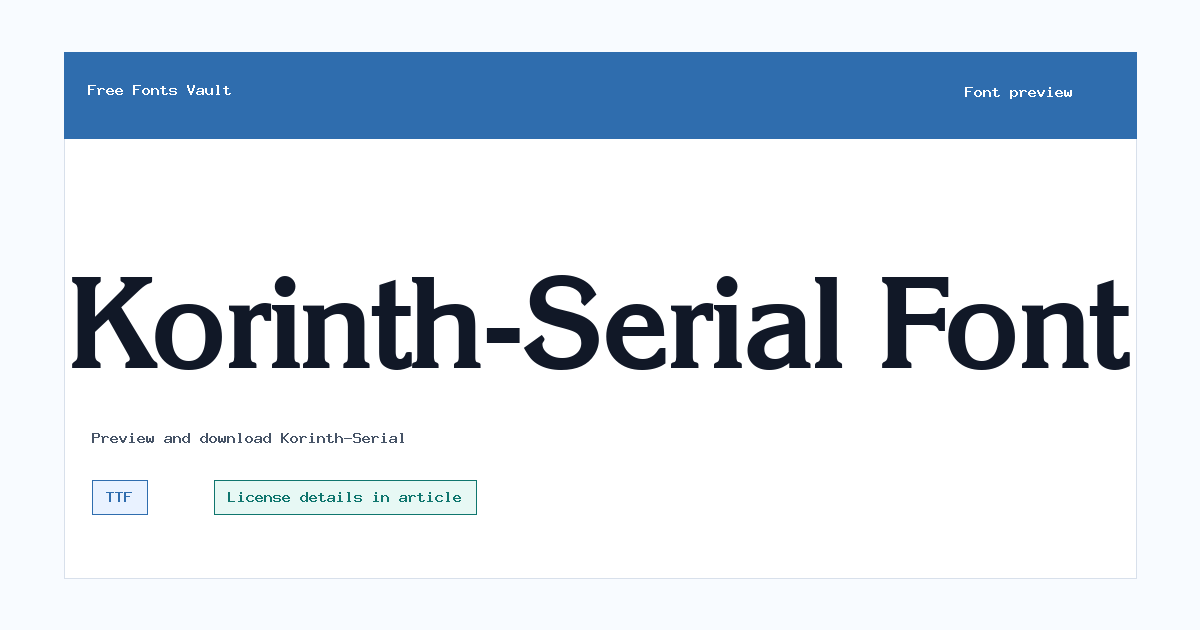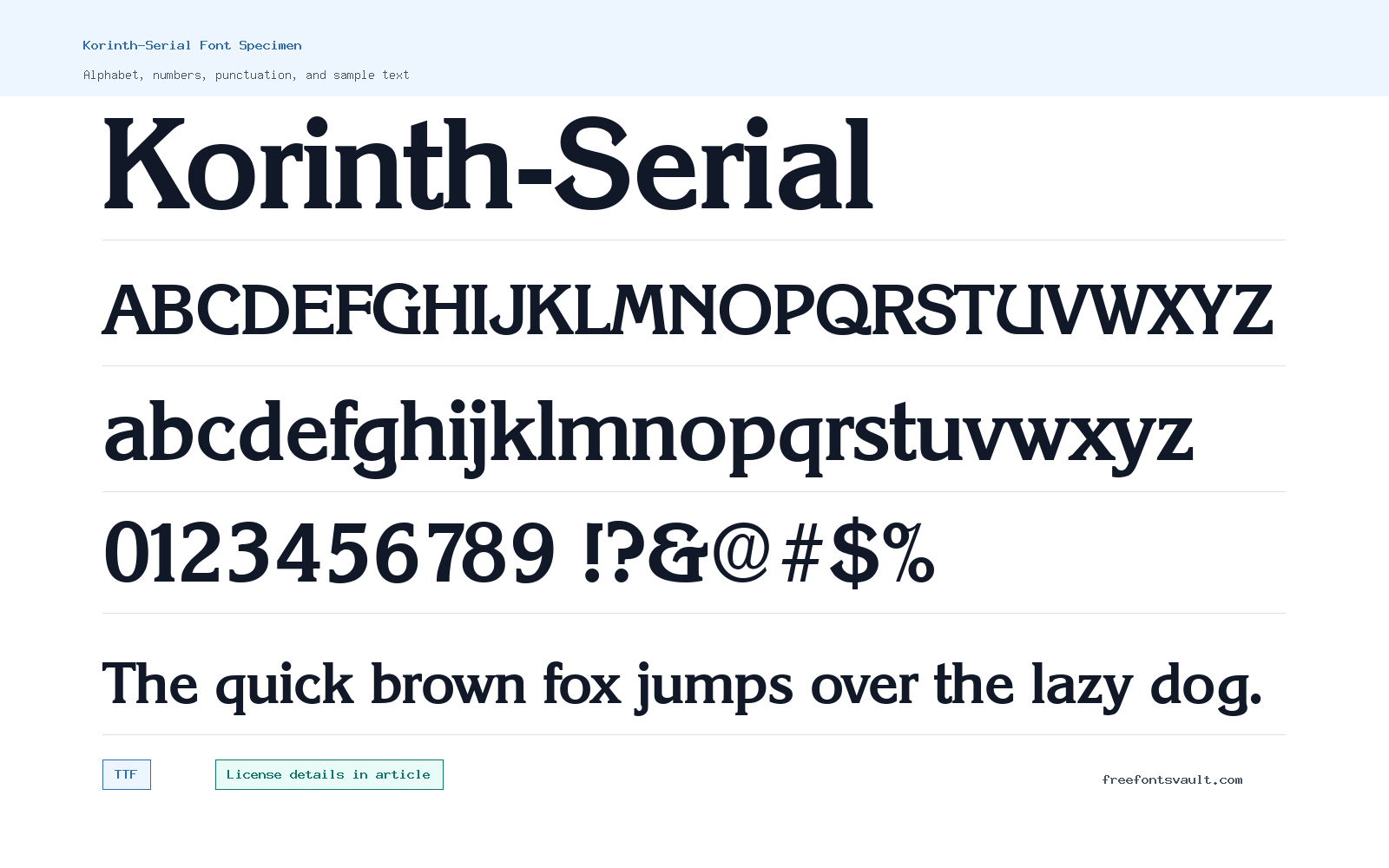
Korinth-Serial
- Designer (c) 1996 SoftMaker Software GmbH
Korinth-Serial font.
Korinth-Serial is a serif font family published under SoftMaker, with this download focused on the Bold TrueType file, Korinth-Serial-Bold.ttf.
About Korinth-Serial
Korinth-Serial has the feel of a display serif rather than a plain text face. The Bold style gives words a firm, noticeable shape, with enough serif character to feel more distinctive than a standard book font. It can work well when you want a heading, nameplate, poster line, or short title to look traditional but not stiff. Because this listing uses the Bold TTF file, it is best tested at larger sizes first, where the weight and details are easier to judge.
Use the preview box to try the exact words you plan to set. Short phrases, initials, numbers, and mixed-case headings will tell you more than a long sample sentence. If you plan to use Korinth-Serial for body copy, test paragraphs carefully, because a bold display serif can become heavy when used in long reading blocks. It may pair better with a quieter sans serif or a lighter text serif for descriptions, menus, captions, and supporting copy.
- Serif family with commercial retail listings under SoftMaker and multiple related styles in the wider Korinth Serial family
- Headlines, title graphics, posters, labels, and short display text
- Projects that need a serif look with more personality than a neutral text face
The font file information names “(c) 1996 SoftMaker Software GmbH.” Retail listings also associate the Korinth Serial family with SoftMaker. A separate individual designer name was not confirmed.
What is Korinth-Serial best used for?
It is most practical for short display settings such as titles, poster text, labels, and decorative headings. For long paragraphs, test readability first or use a calmer text font alongside it.
Who published Korinth-Serial?
The copyright line names SoftMaker Software GmbH, and retail font listings publish the Korinth Serial family under SoftMaker.